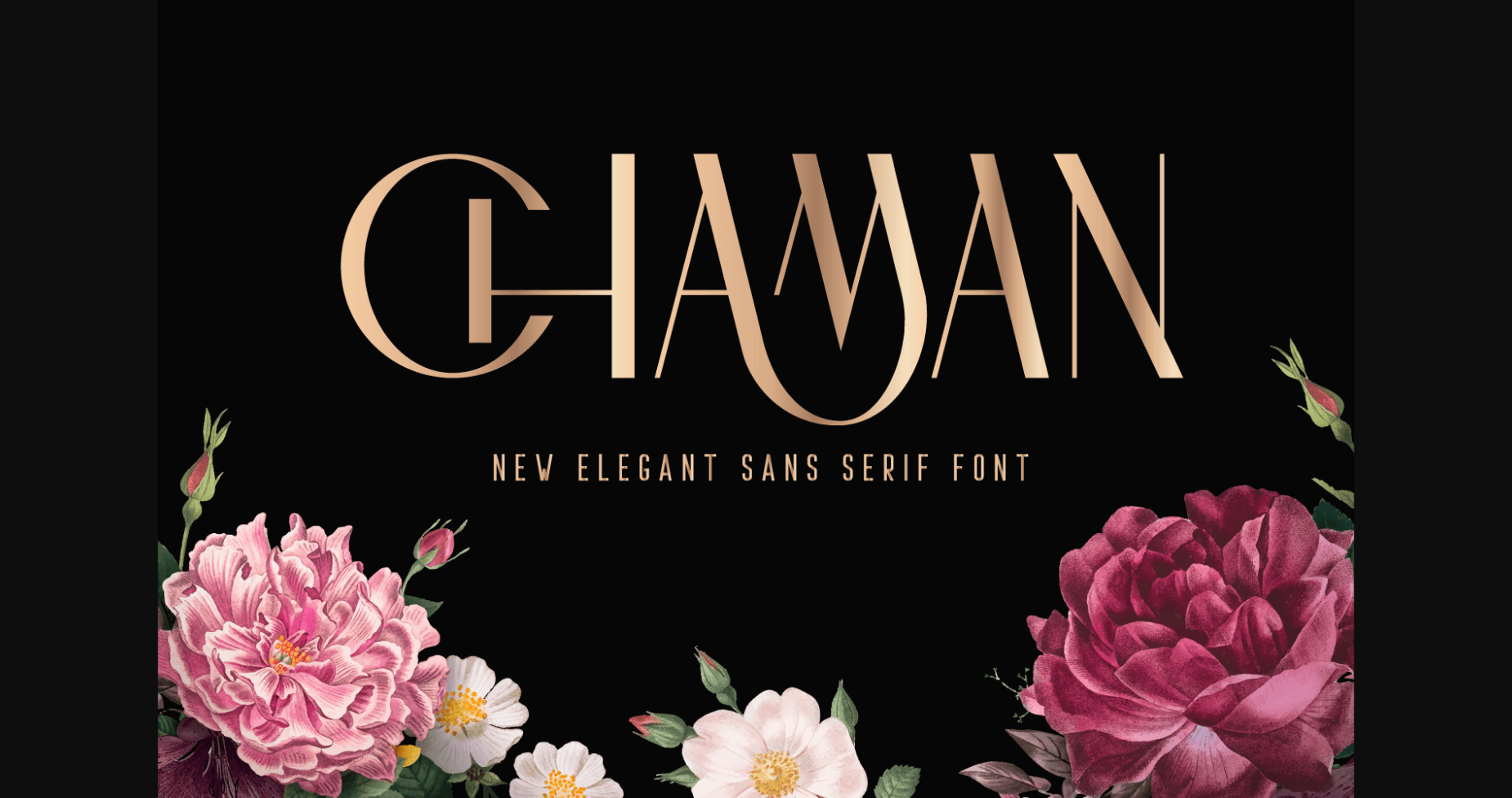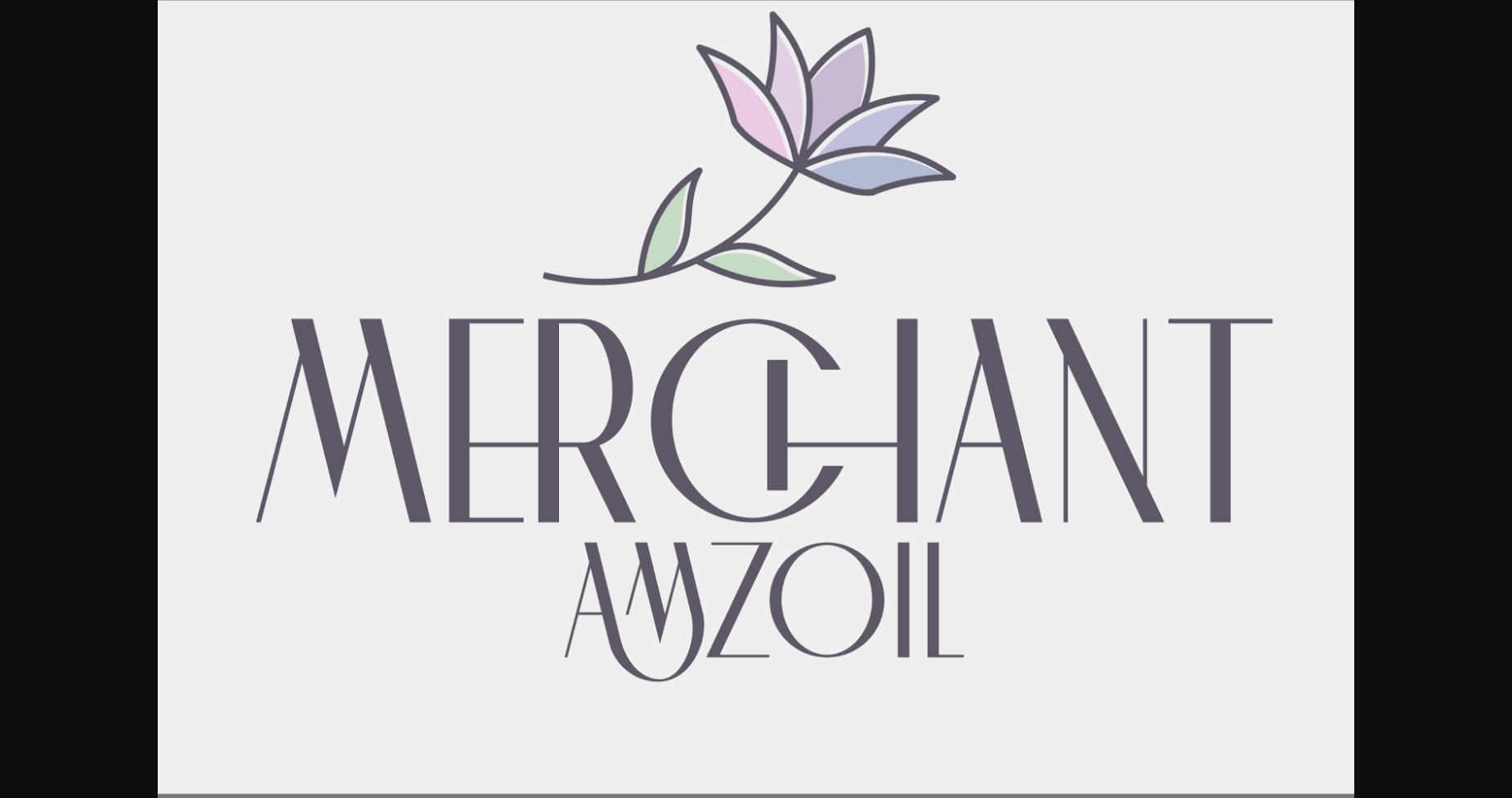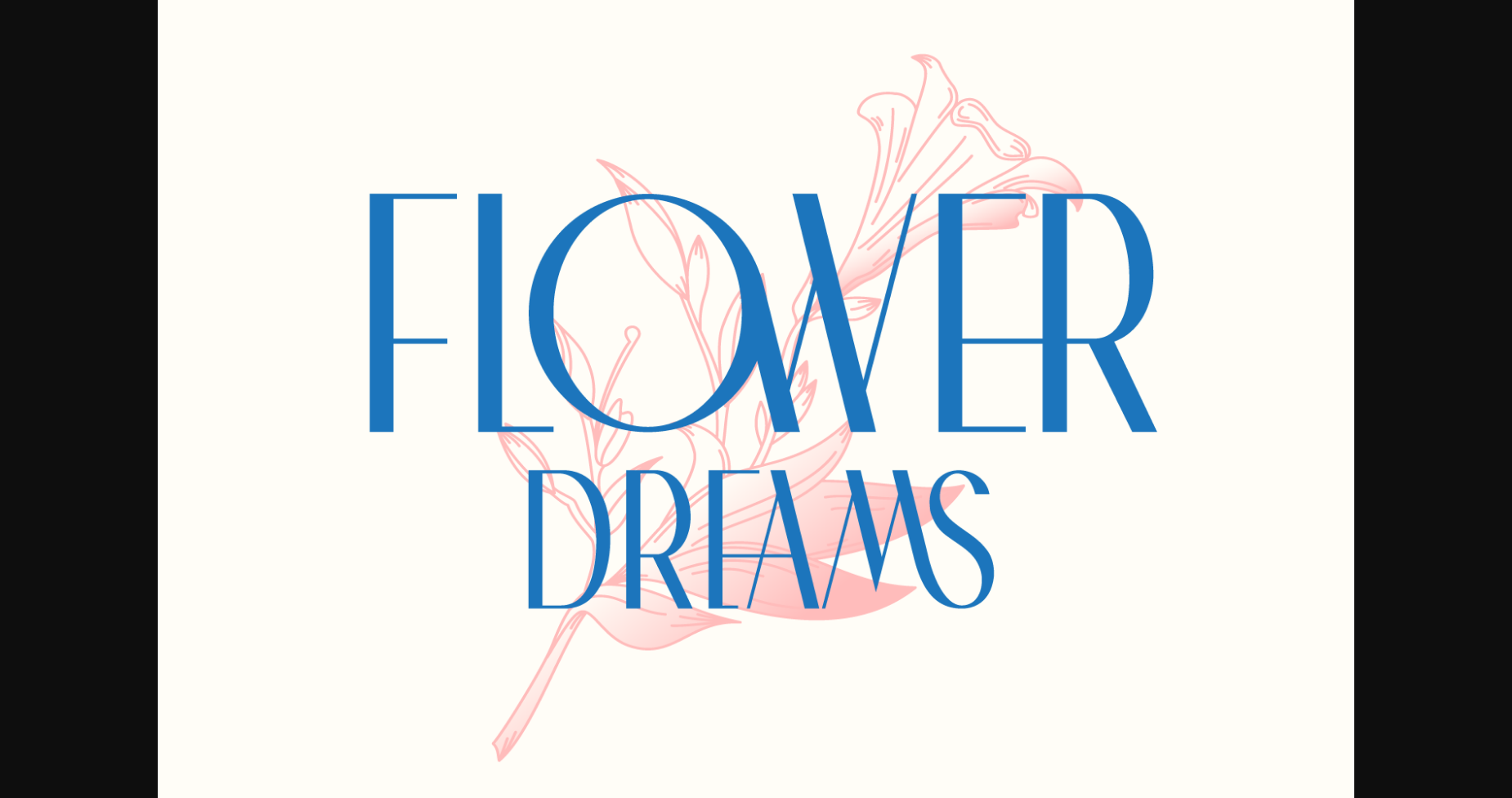
About Chaman Font
Chaman is an elegant and modern looking sans serif font. This font is PUA encoded which means you can access all of the glyphs and swashes with ease!